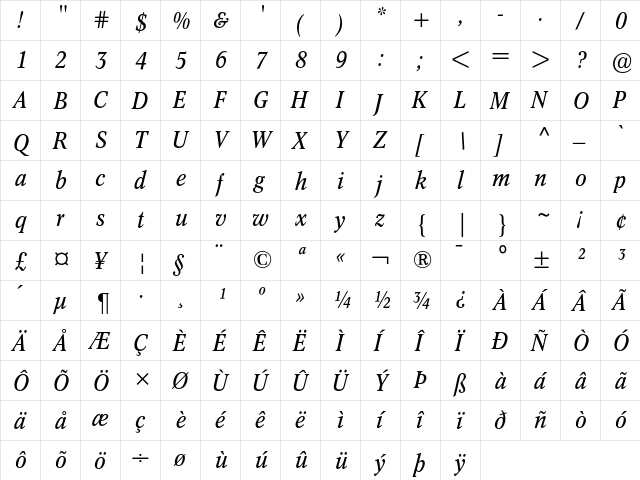
Concorde Nova Italic Font Preview
Concorde Nova Italic
Design Context for Concorde Nova Typeface
Concorde Nova offers clean, dependable letterforms without strong stylistic allegiance, making it a practical choice for designers who need flexibility. The slanted form adds forward momentum and visual energy.
Pro Tip: Try Concorde Nova for annotation and caption copy alongside an upright companion — the contrast in angle creates a dynamic but ordered typographic system.